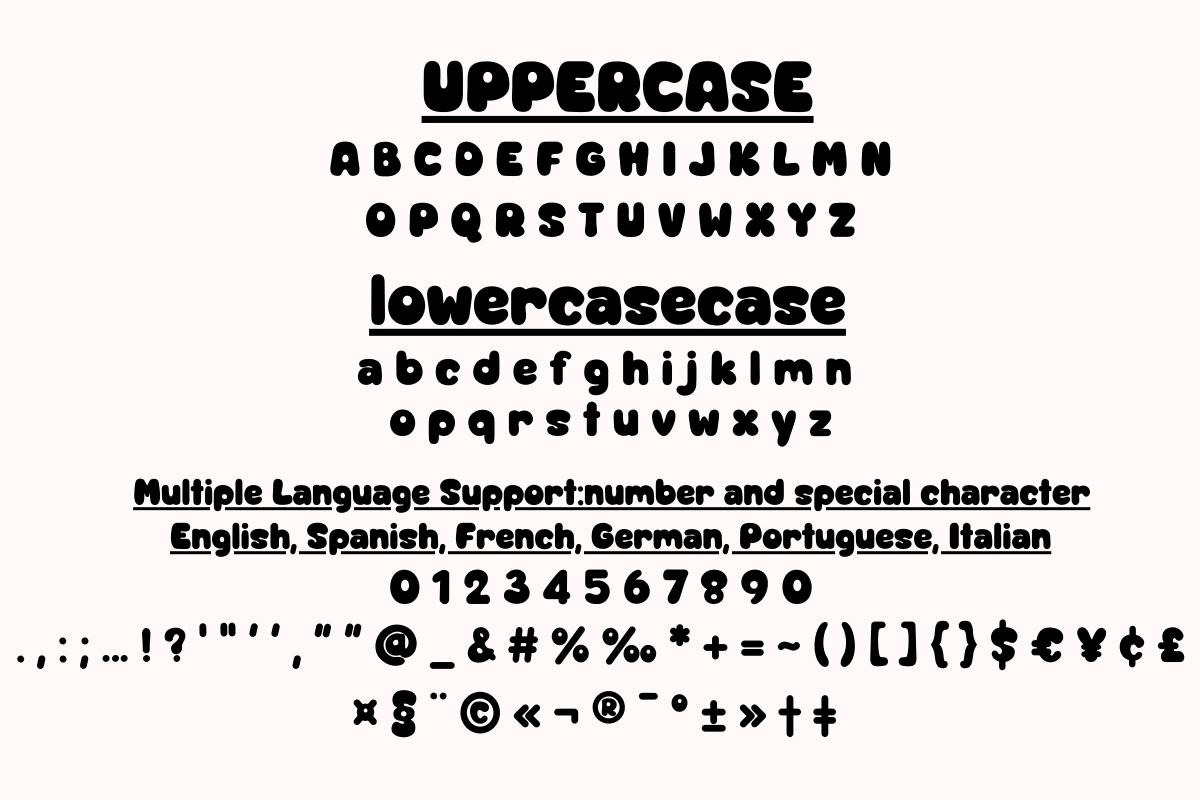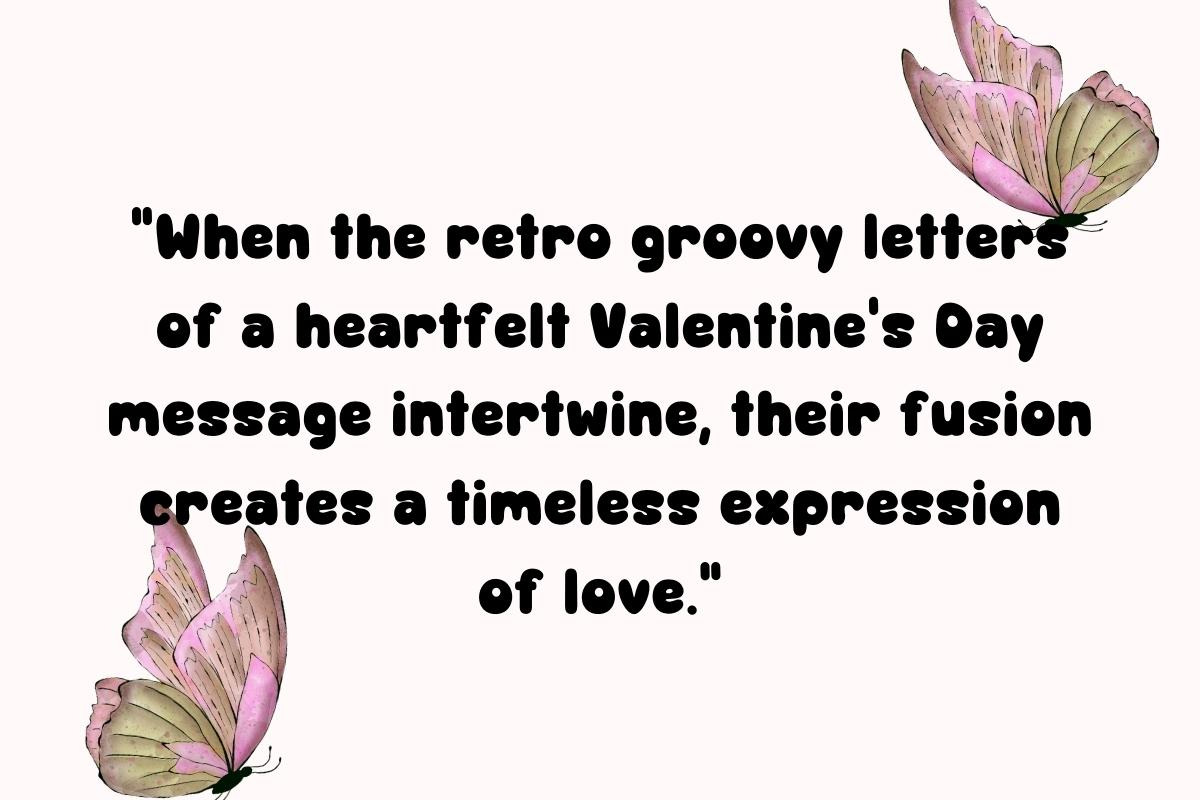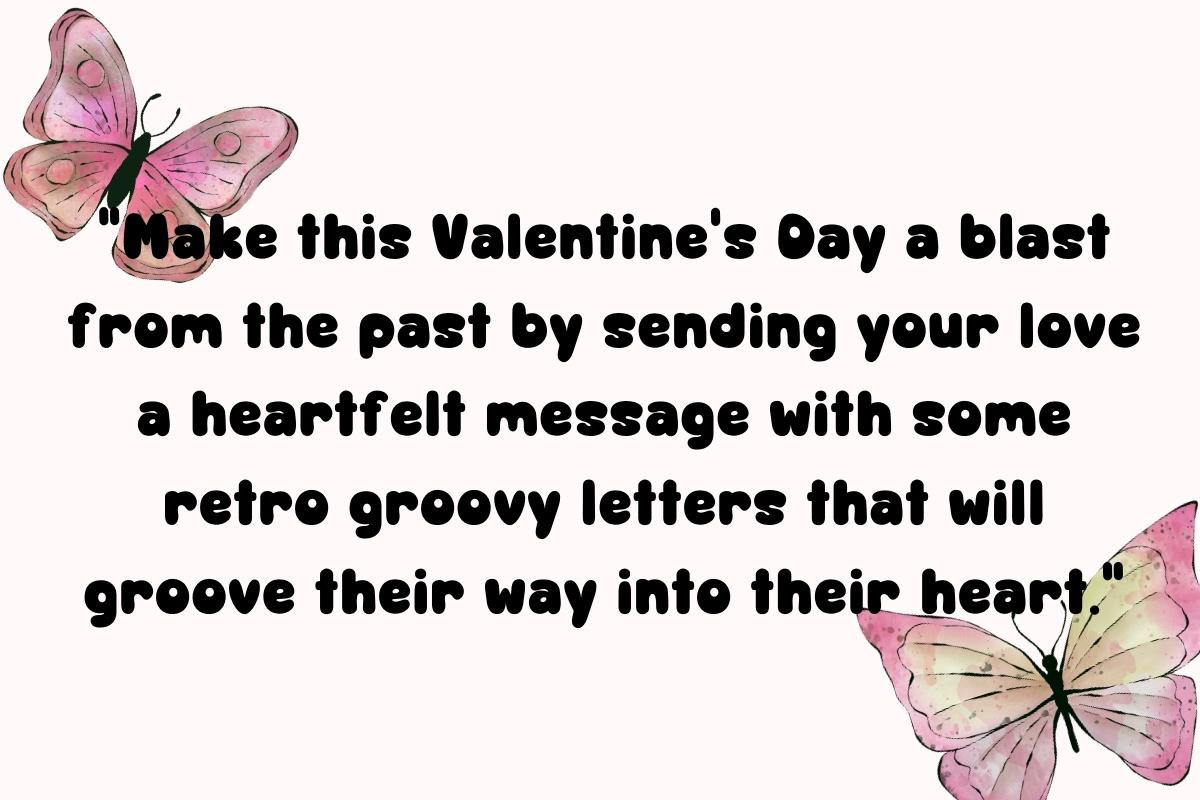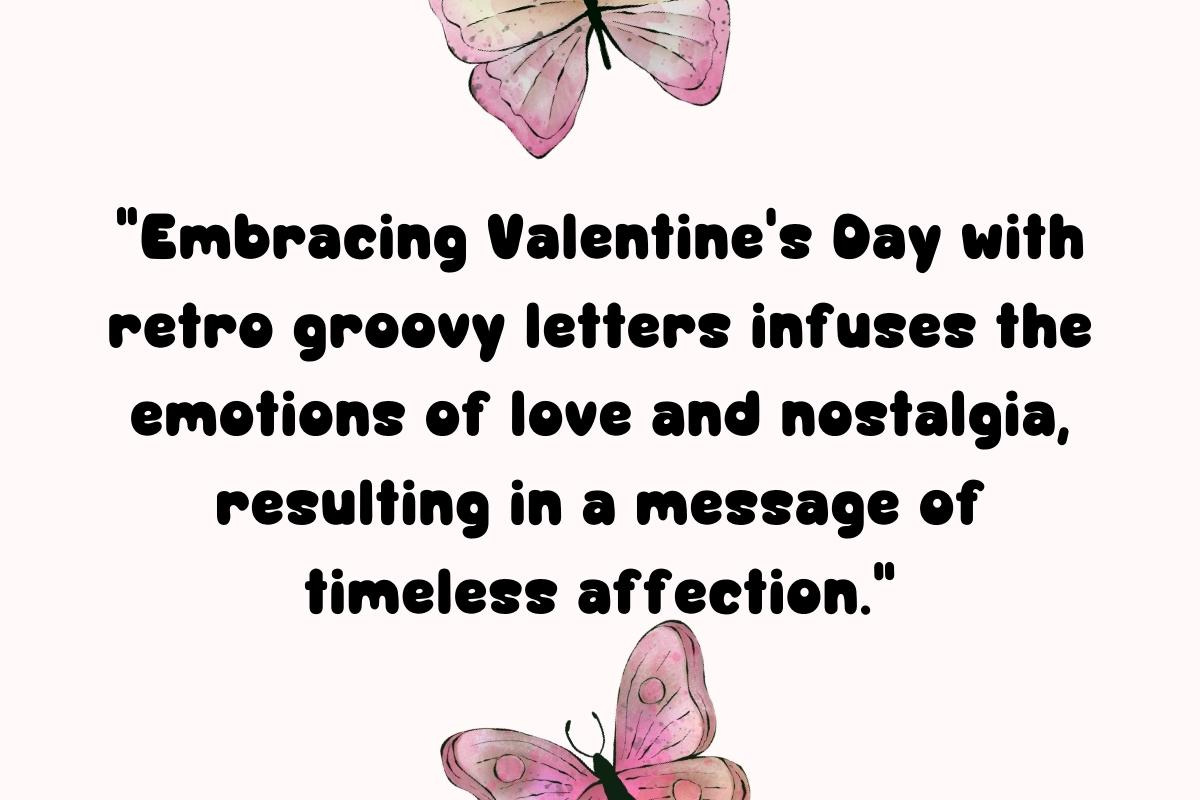
Valentine Groovy
๐ What Makes Valentine Groovy Special? ๐
๐จ Unique Retro Aesthetics: Valentine Groovy is all about those swirly, curvy, and distinctive characters that were the hallmark of retro design. Every letter, number, and symbol exudes a sense of nostalgia and warmth.